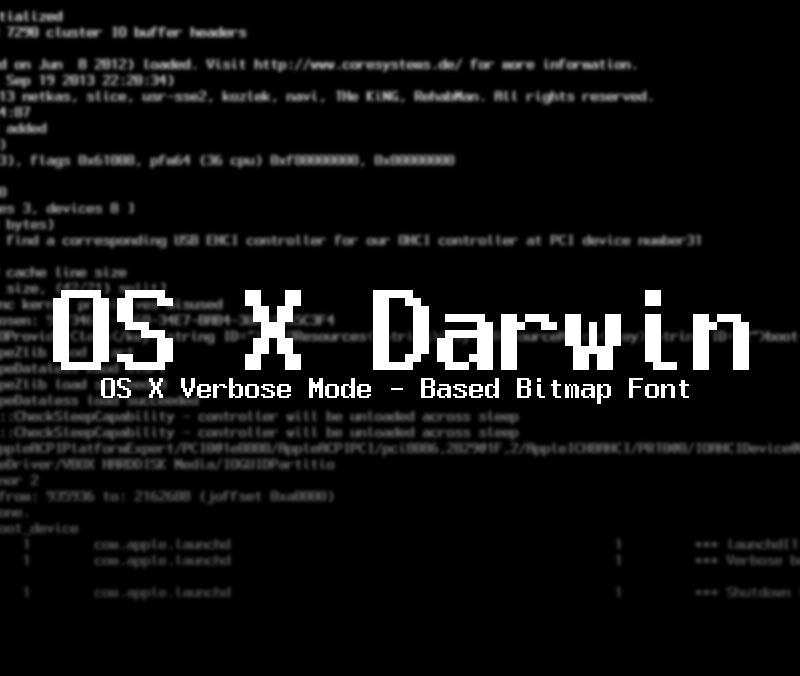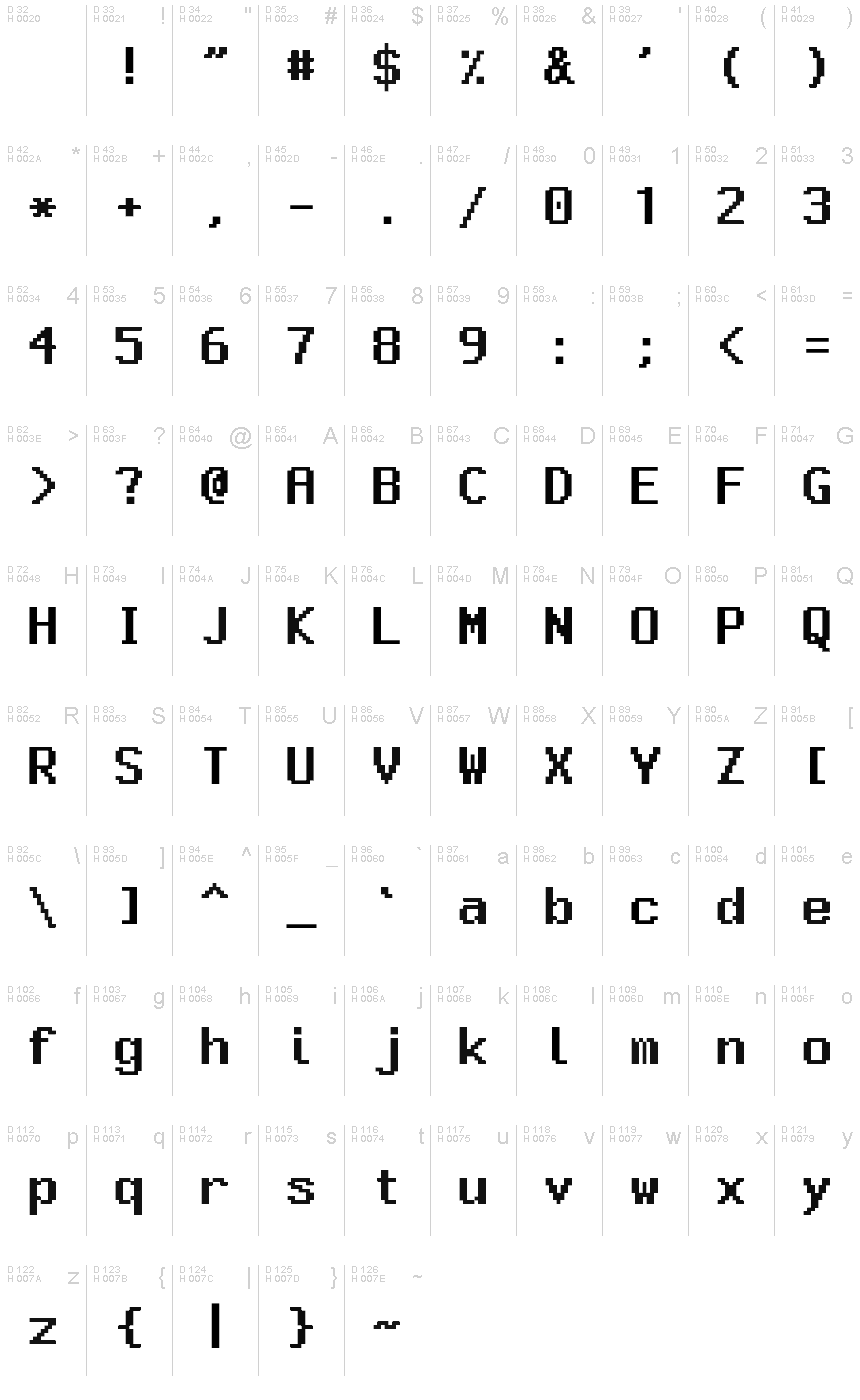
OSXDarwin
OS X Darwin is a captivating bitmap font that exudes a distinct pixelated charm. Designed by Dies, this typeface effortlessly balances a retro aesthetic with a modern edge. The sharp, angular letterforms and the bold, high-contrast lines create a striking visual impact, making OS X Darwin an excellent choice for digital interfaces, gaming, and edgy design projects. Its pixelated style lends itself well to contemporary branding, social media graphics, and eye-catching headlines.
Whether you're seeking a nostalgic nod to the early days of computing or a bold typographic statement, OS X Darwin is a versatile font that can elevate the visual appeal of your designs.